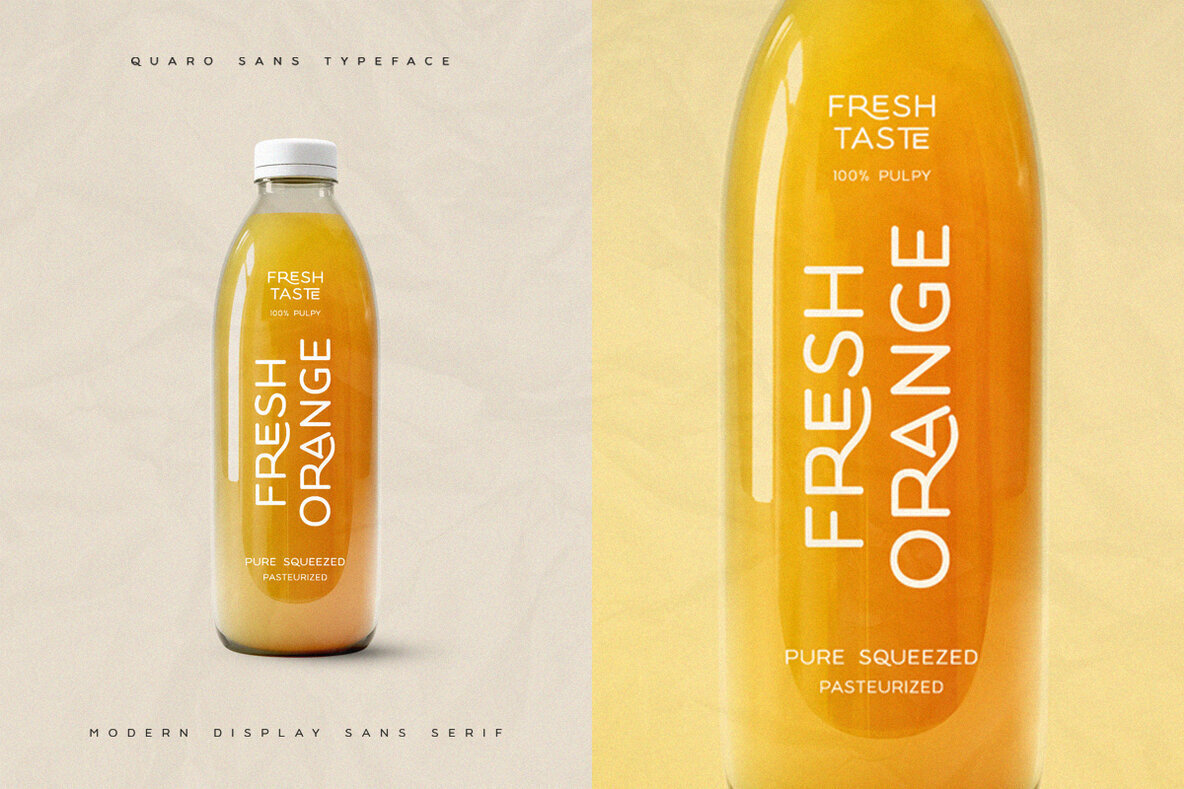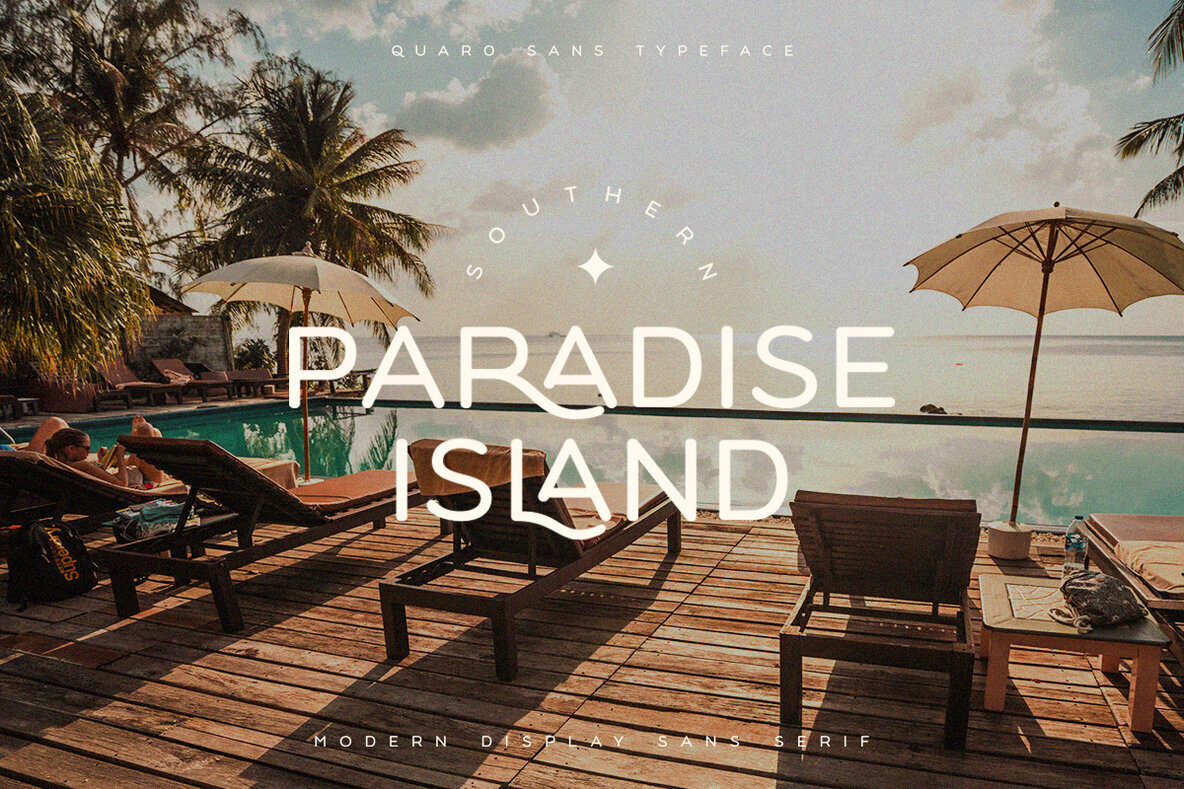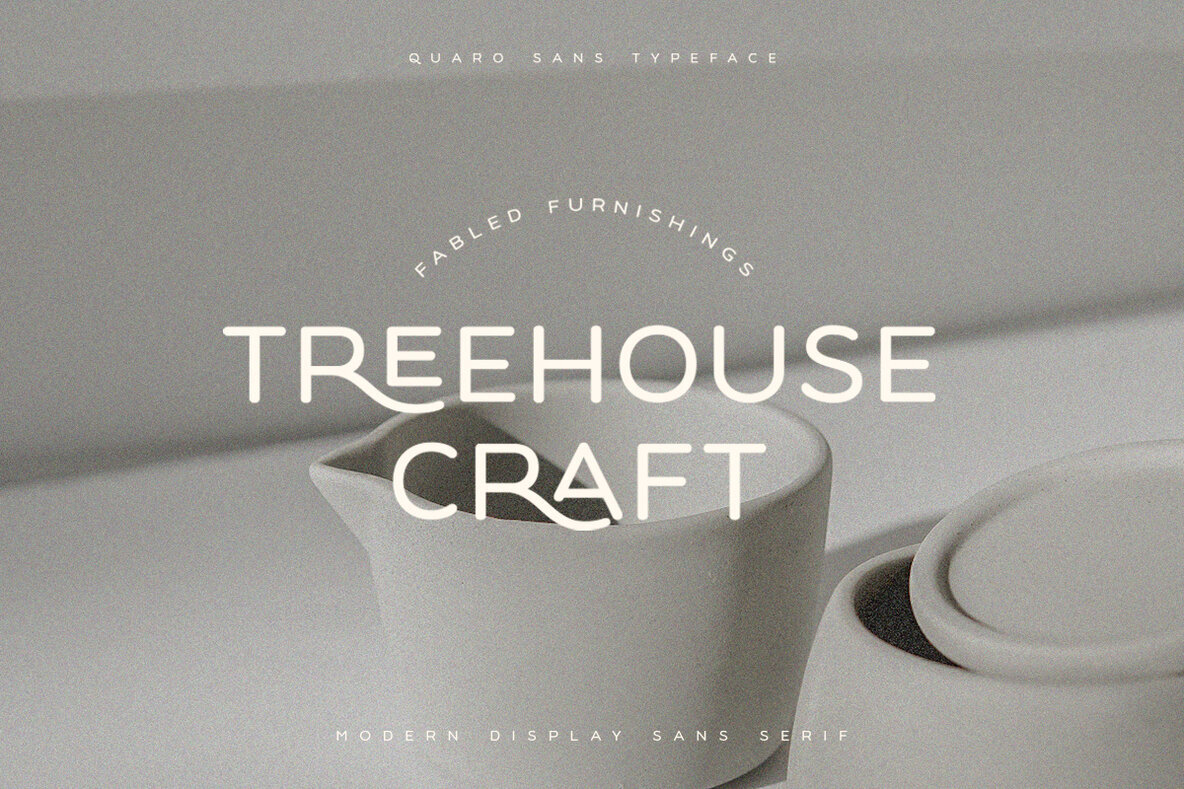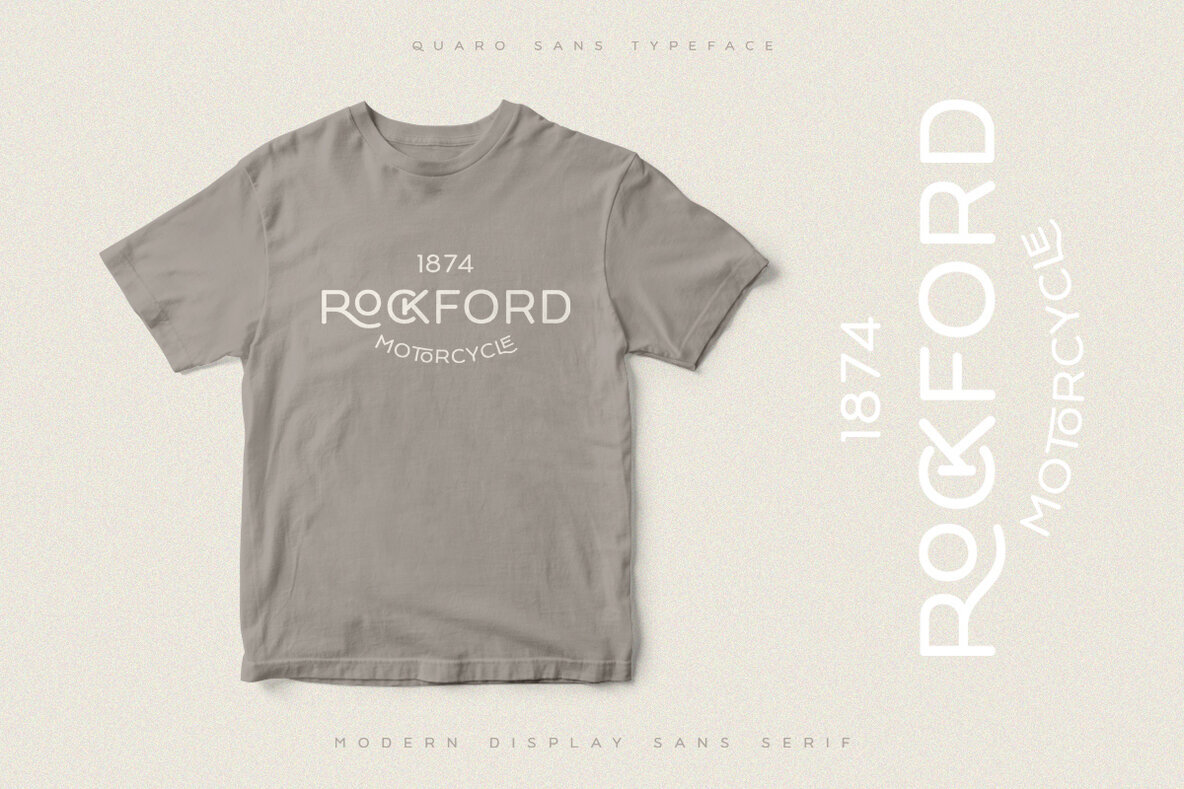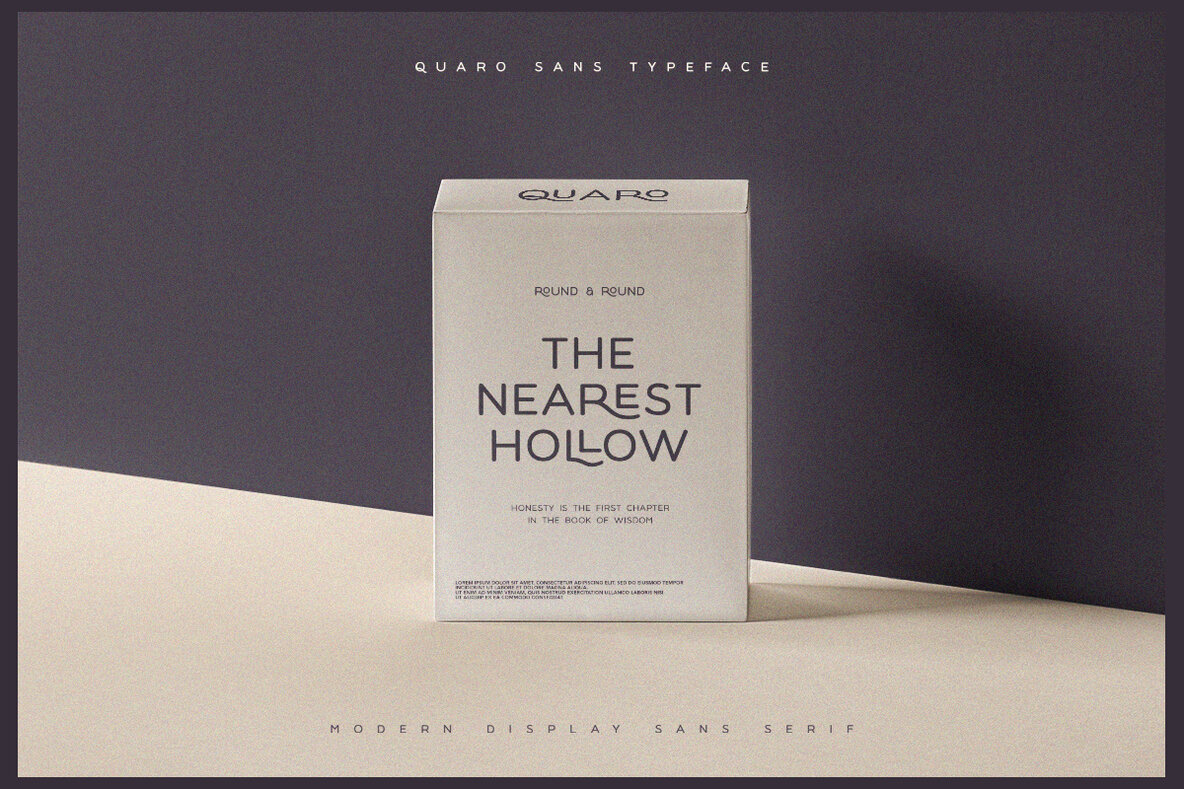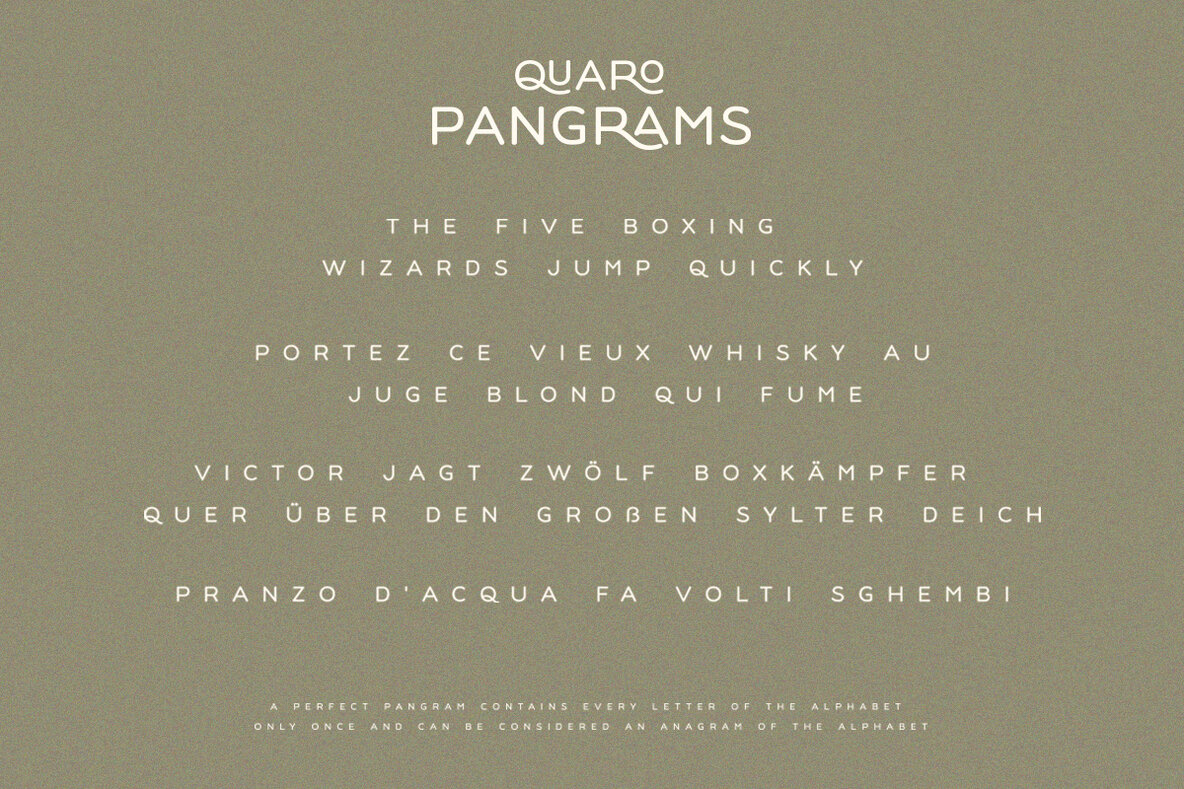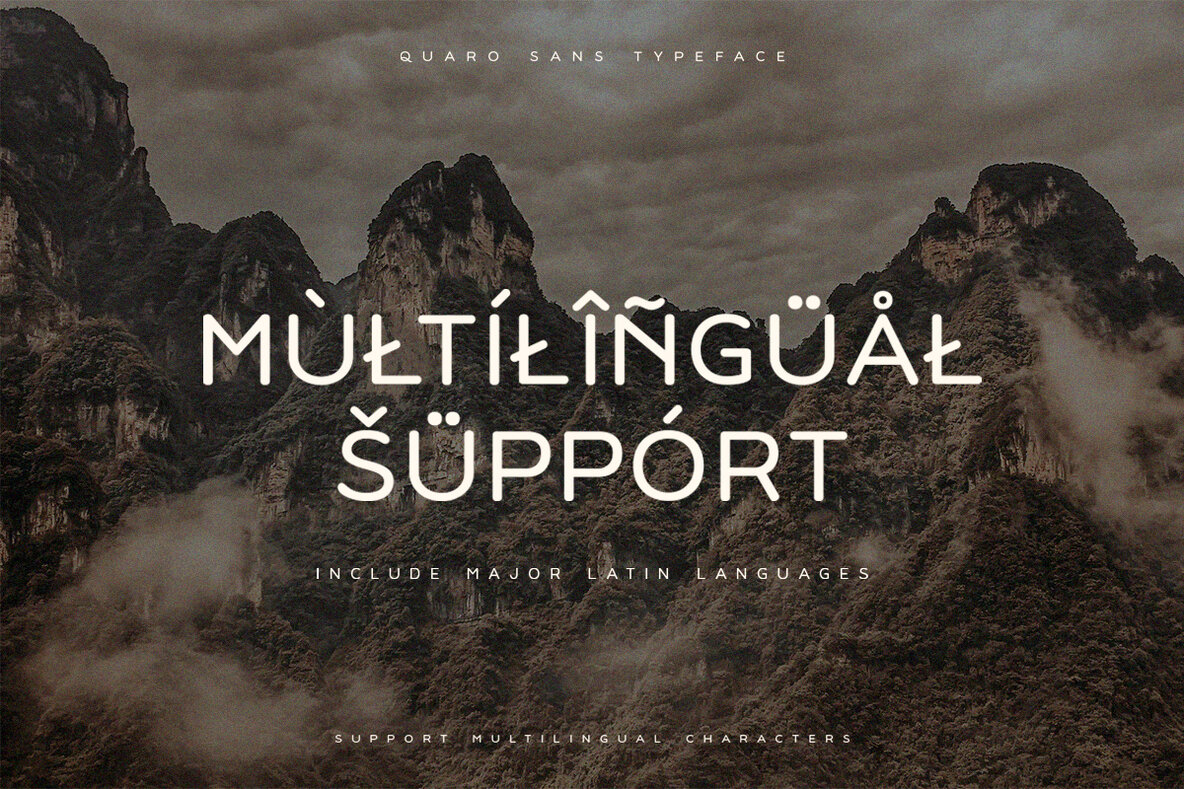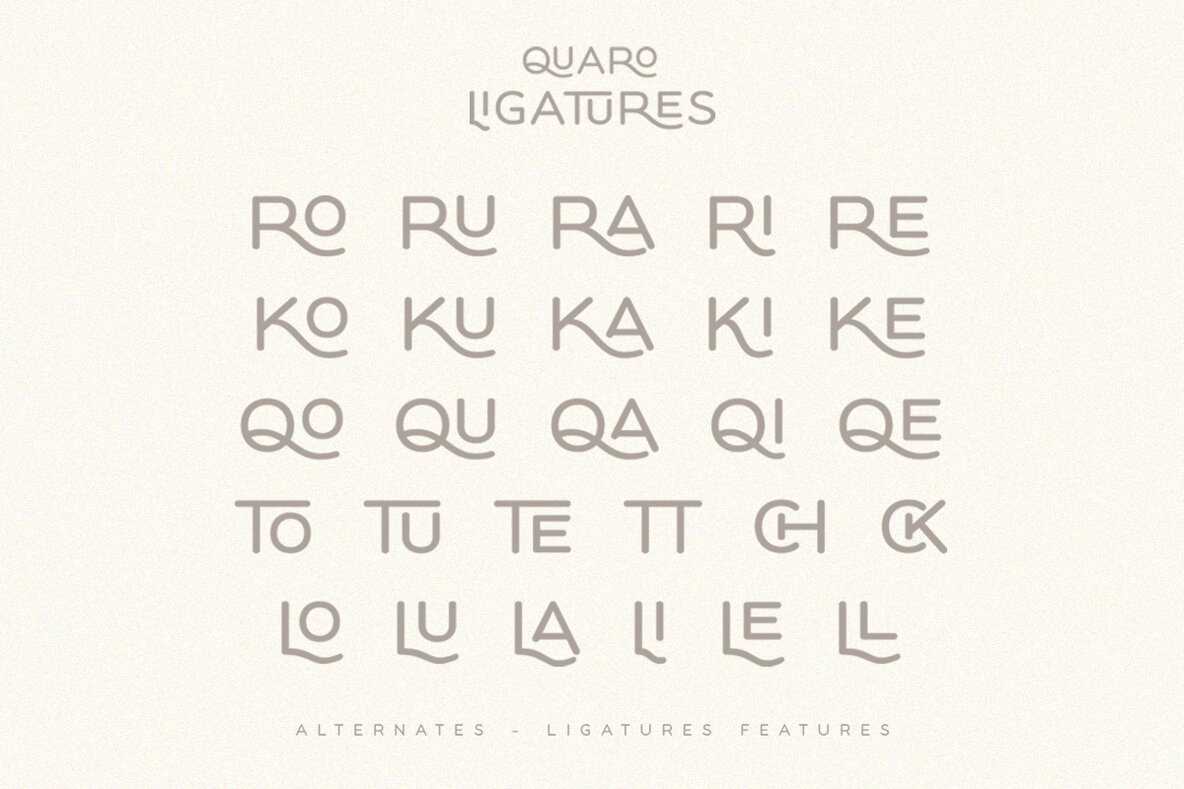
Quaro: A Contemporary Display Sans
The Quaro typeface, crafted by Pentagonistudio, embodies modern elegance. With its round and stylish design, Quaro stands out in the world of display sans fonts. It invokes a sense of sophistication and clarity, making it an ideal choice for a variety of graphic design projects.
• Stylish Round Shapes – Adds a touch of modernism to any design.
• Versatile Display Font – Suitable for both digital and print applications.